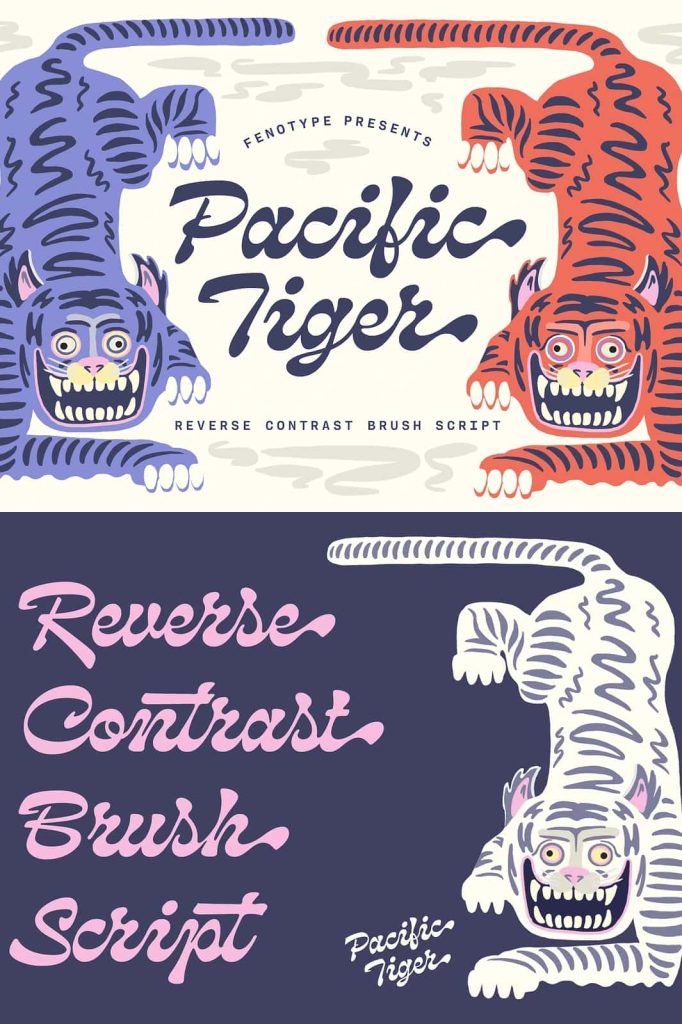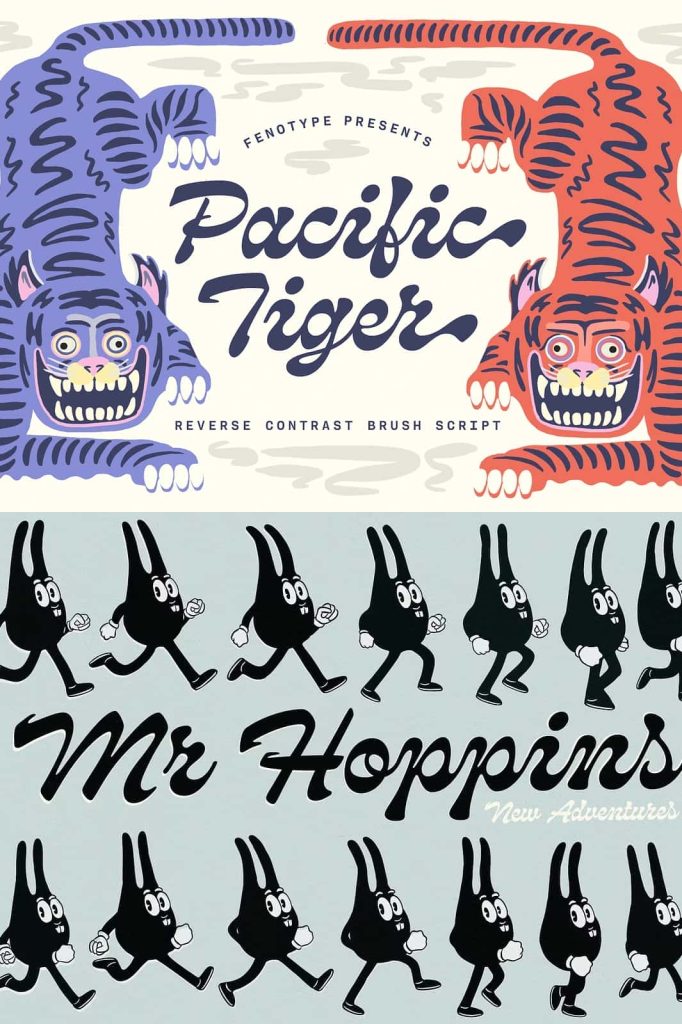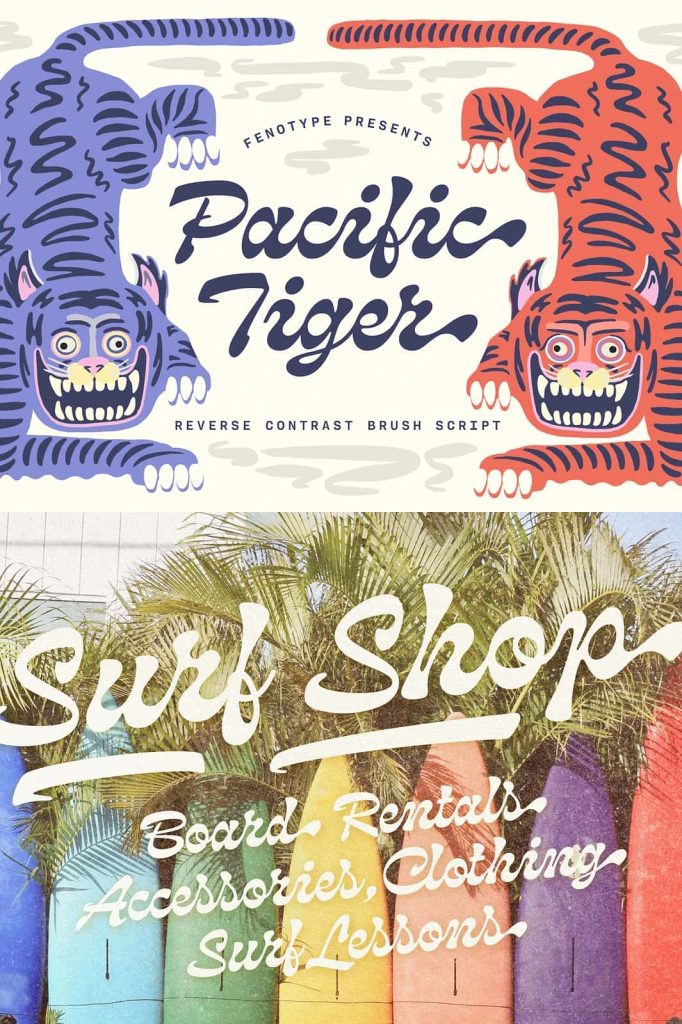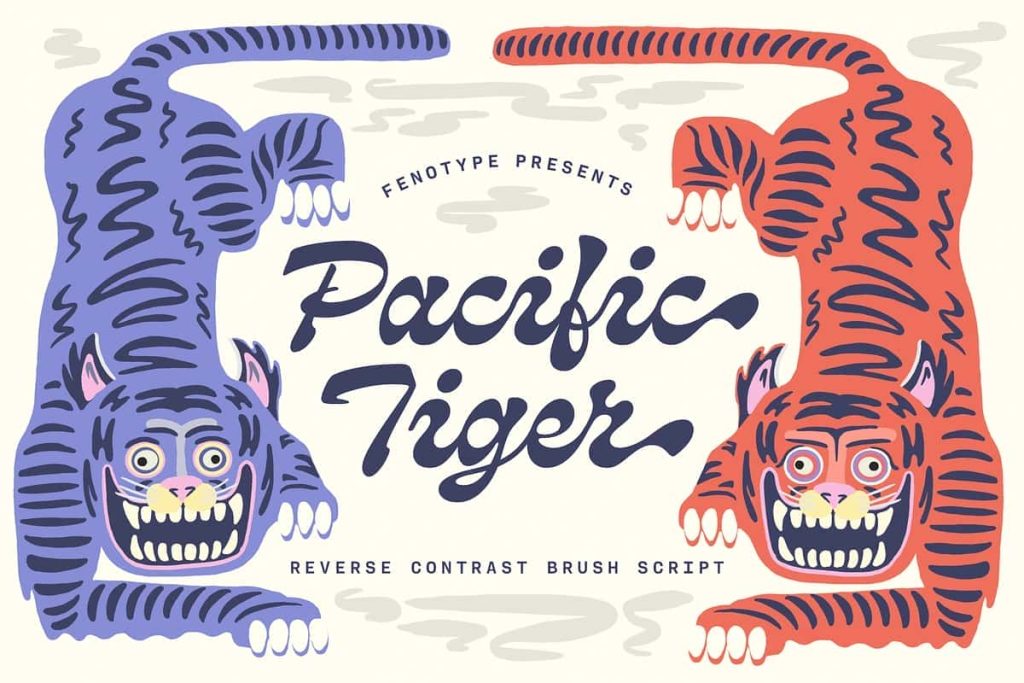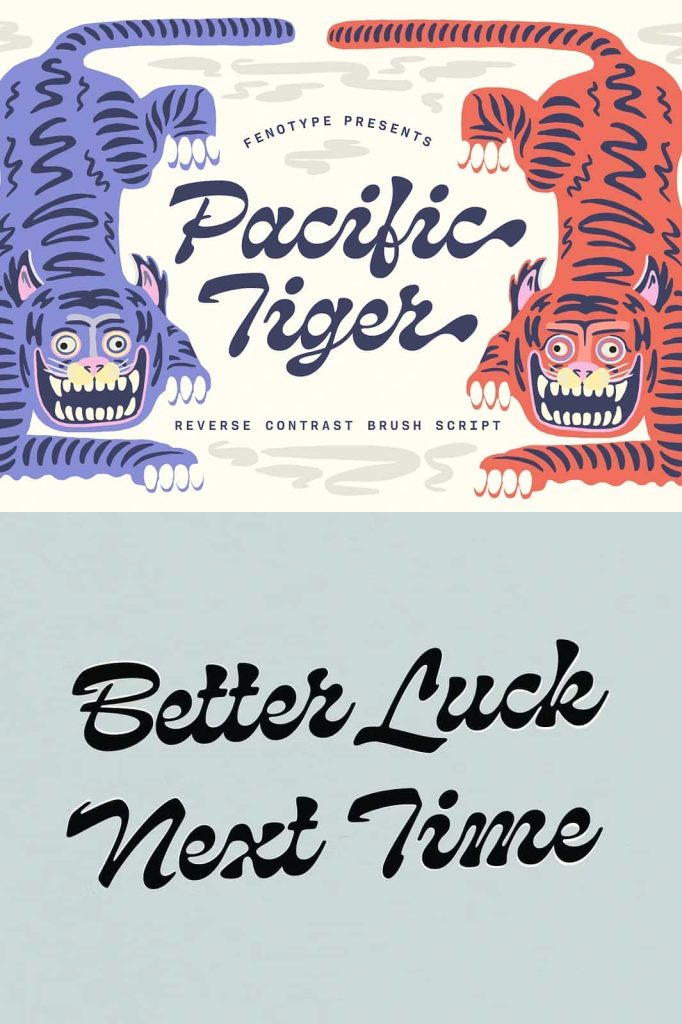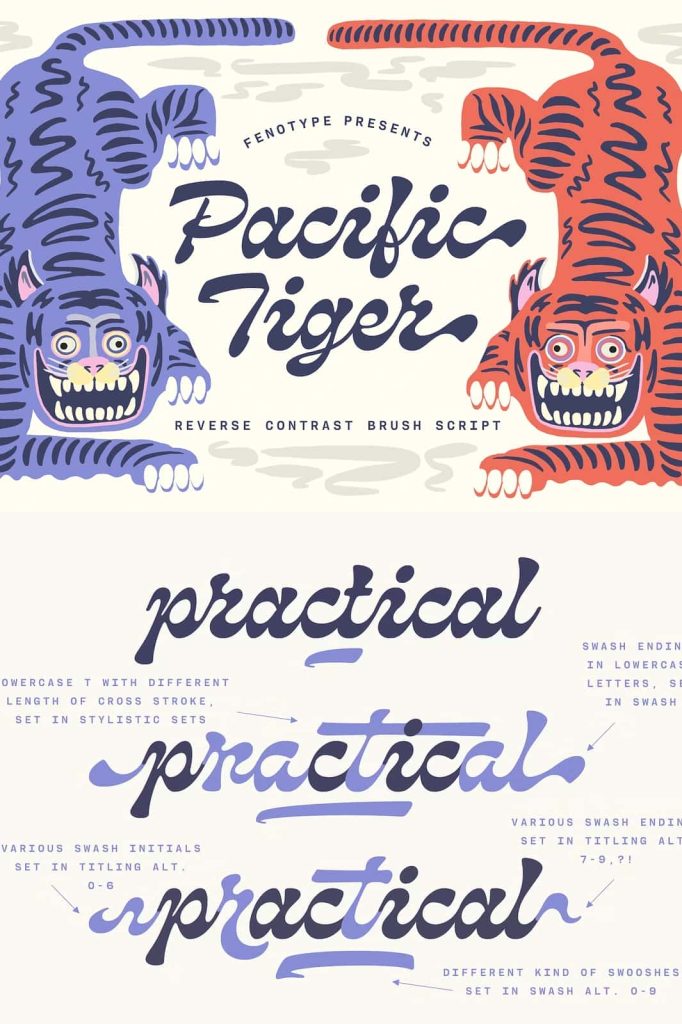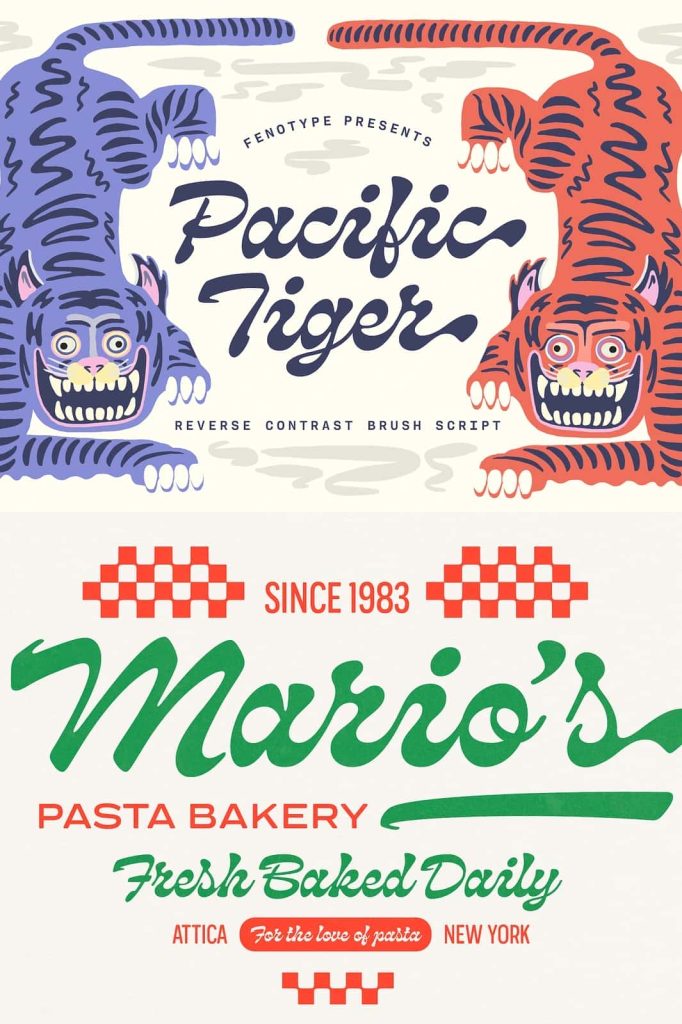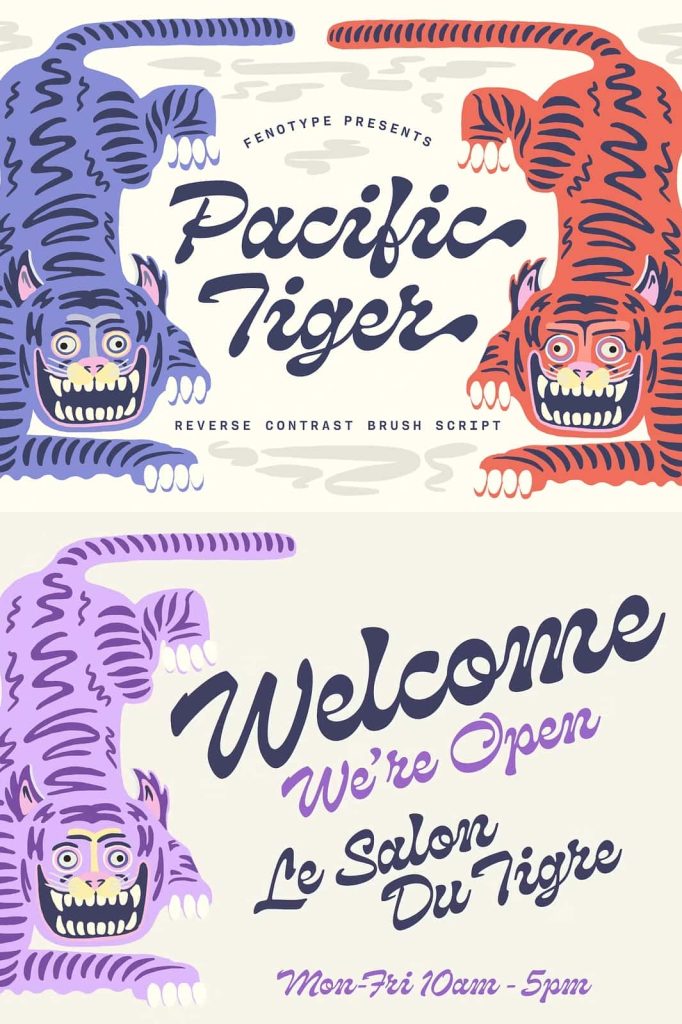
Pacific Tiger is a reverse-contrast brush script with a mellow and smooth summer vibe. Feel the exotic vibe and vigor as you type with Pacific Tiger.